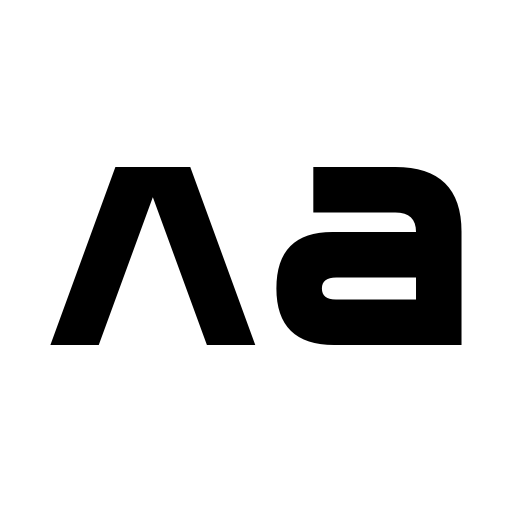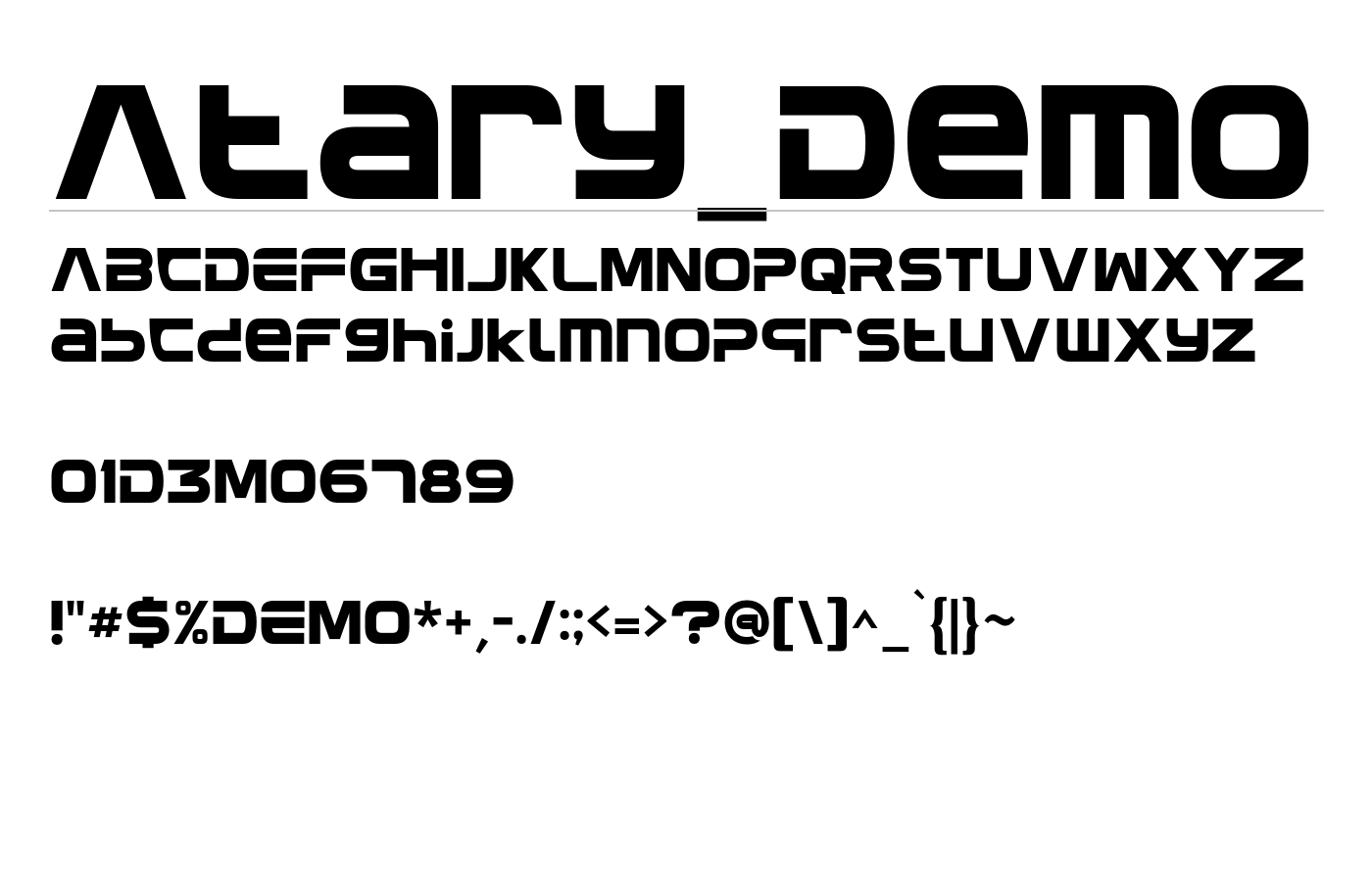
Atary_Demo is a bold, geometric sans serif font with a futuristic and tech-inspired feel. Its strong, blocky letterforms and sharp angles give it a modern, dynamic personality, making it ideal for headlines, logos, and branding that want to convey innovation and strength. This font works especially well in digital and gaming contexts where a bold, distinctive look is key.
Atary_Demo Font
About Atary_Demo Font